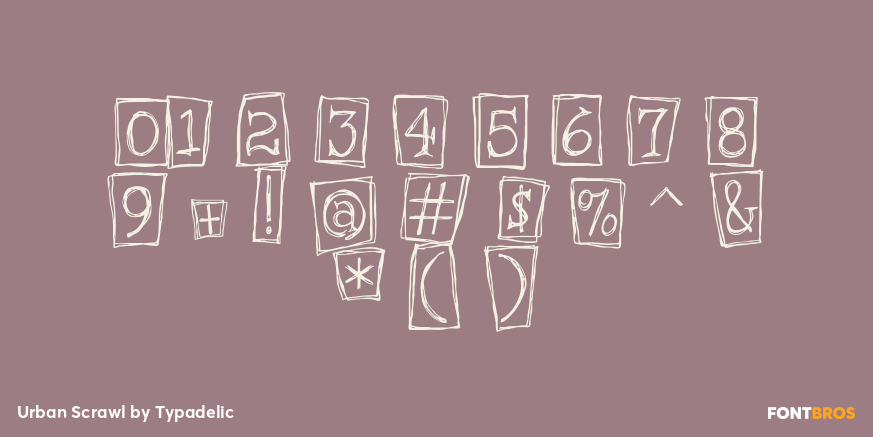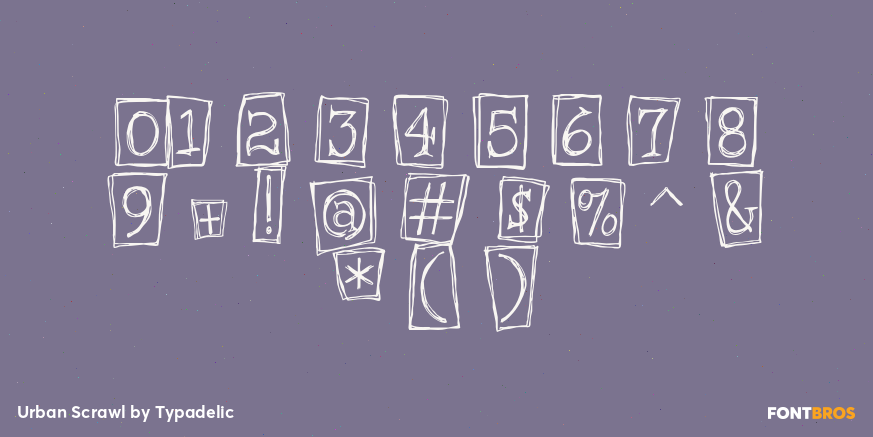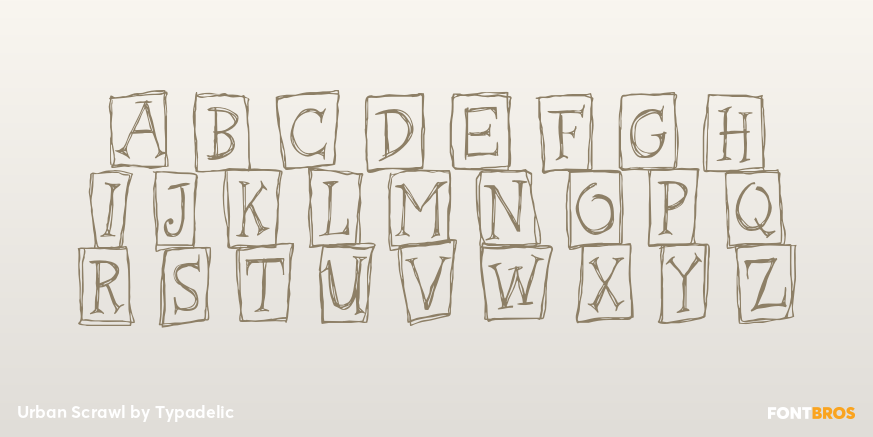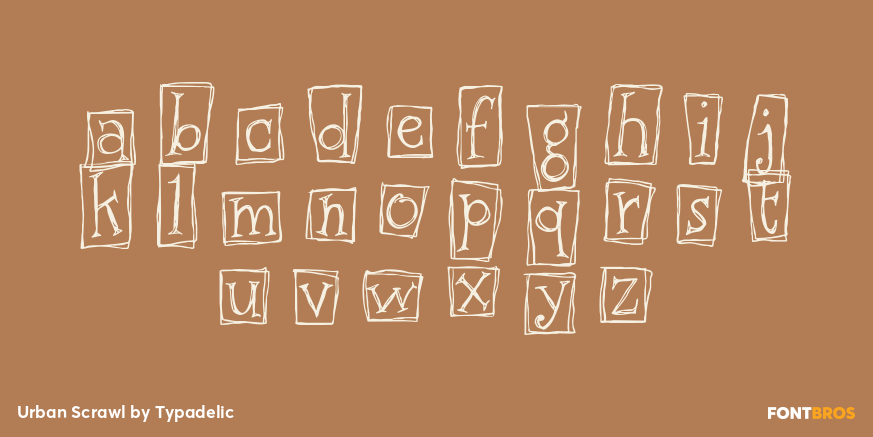
Urban Scrawl
Font Family by Typadelic
Urban Scrawl is another typeface that comes boxed or not and looks like it was written as the ink was running out of a very fine scratchy pen. Fun and totally original!